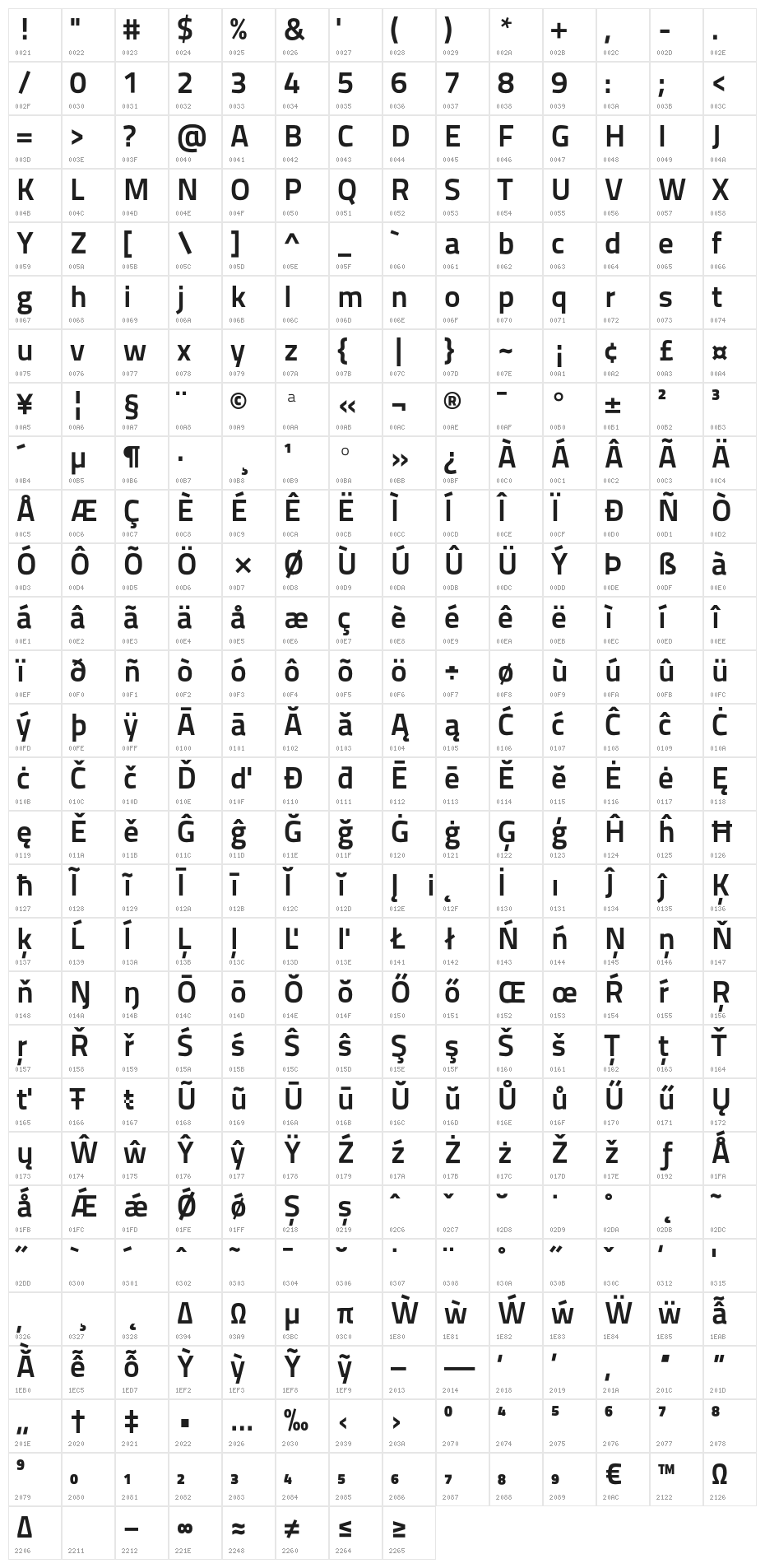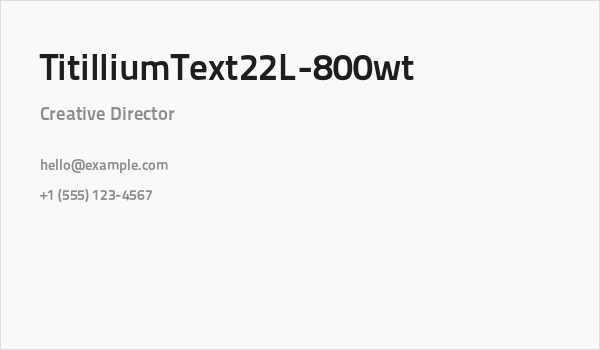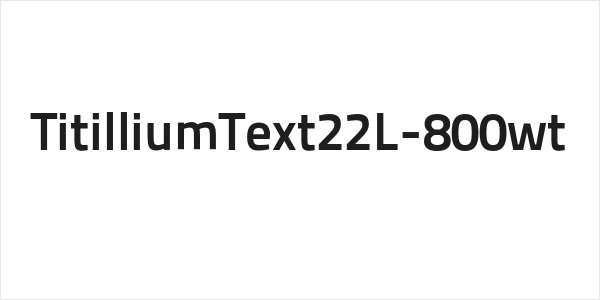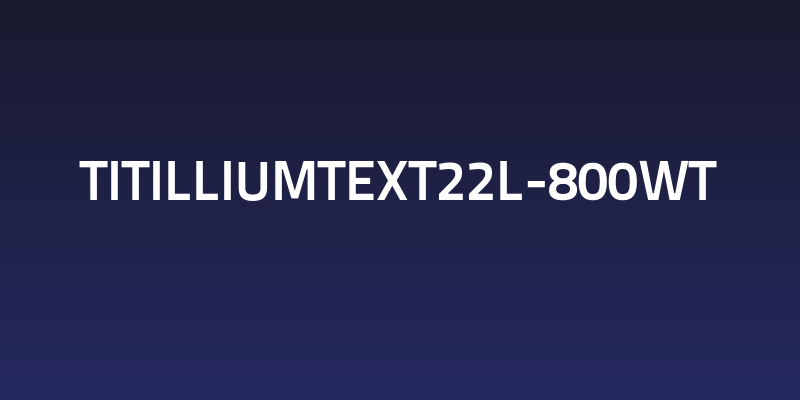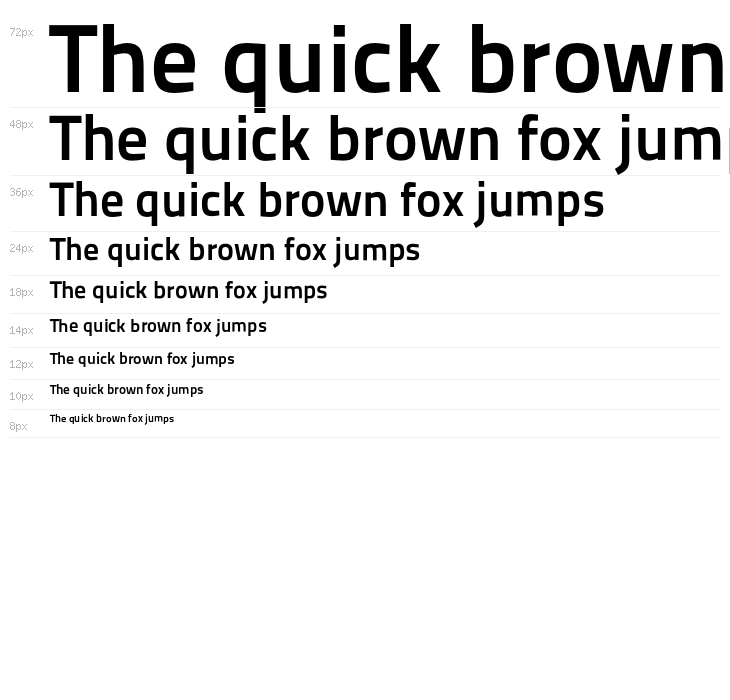
TitilliumText22L-800wt Font
TitilliumText22L-800wt Description
This font exhibits a clean and modern sans-serif style with a focus on readability and simplicity. The characters are well-balanced with a uniform stroke width, contributing to its contemporary appearance. The uppercase letters are bold and assertive, while the lowercase letters maintain a consistent height, enhancing legibility. The numerals are clear and distinct, making them suitable for various applications. Special characters are designed with precision, ensuring they integrate seamlessly with the rest of the typeface. Overall, this font is versatile, making it ideal for both digital and print media.